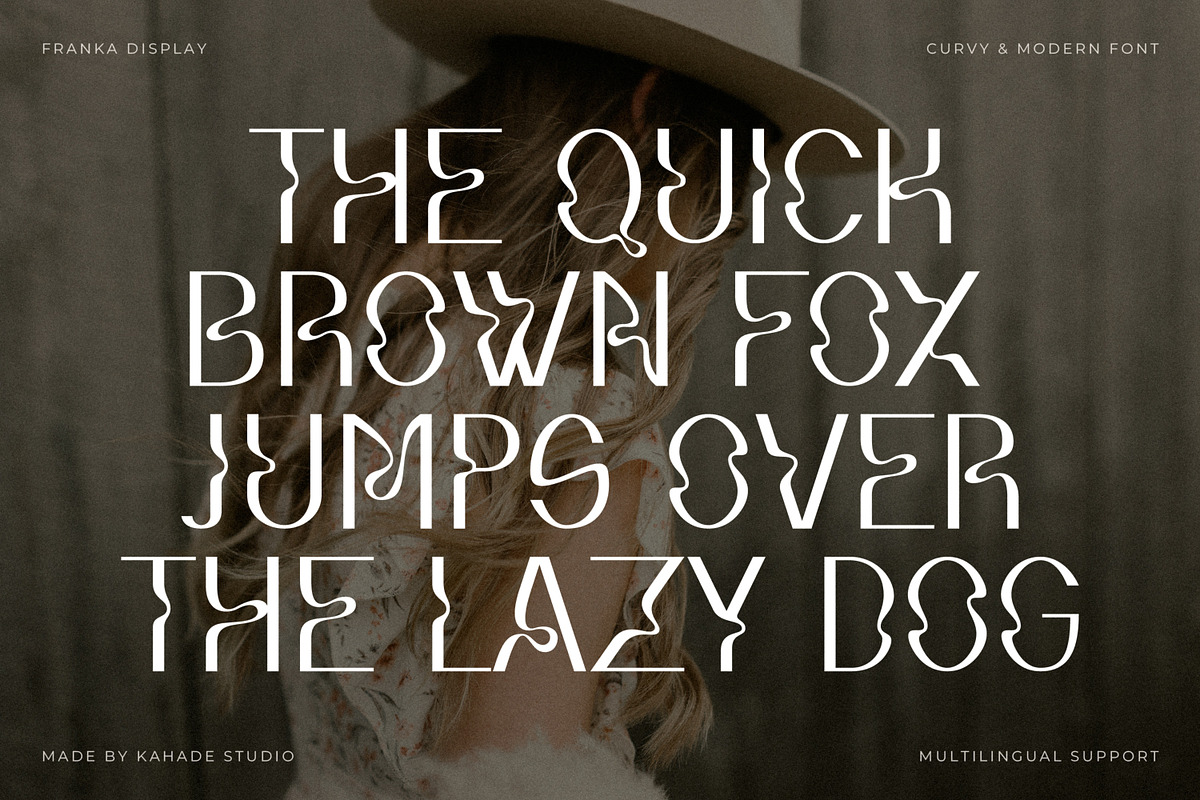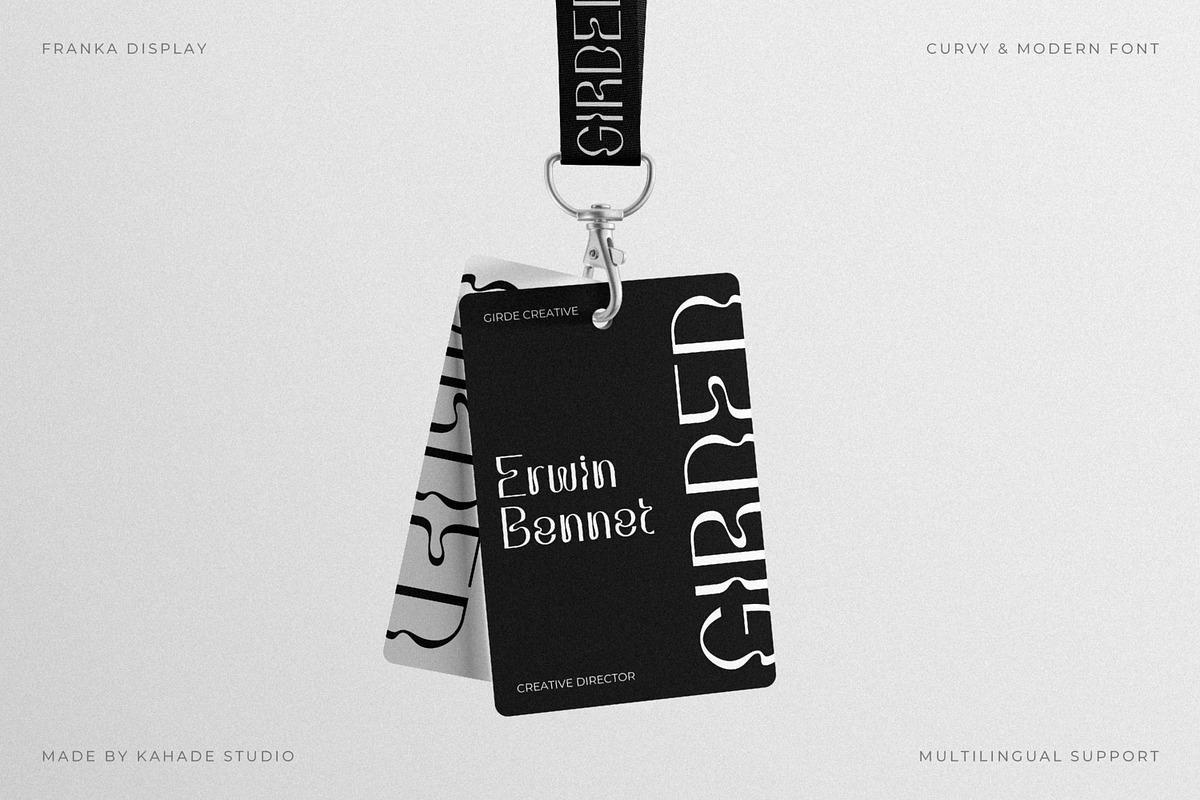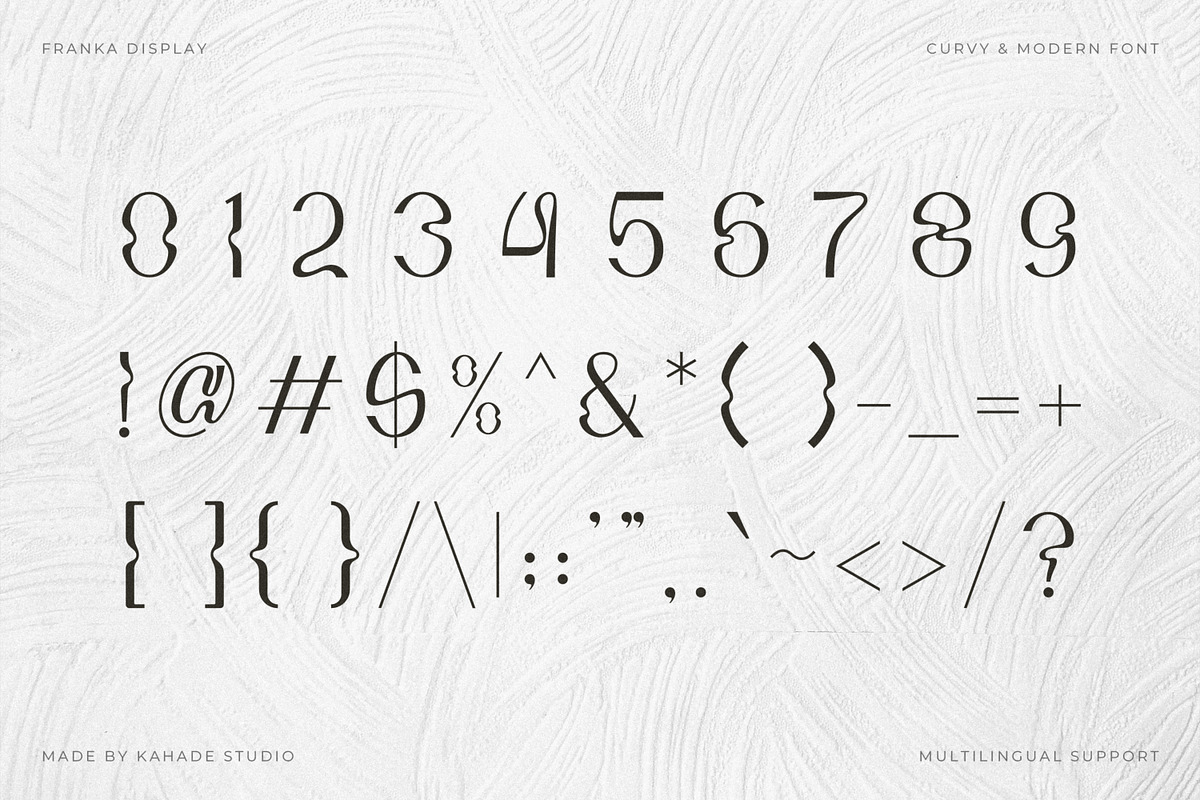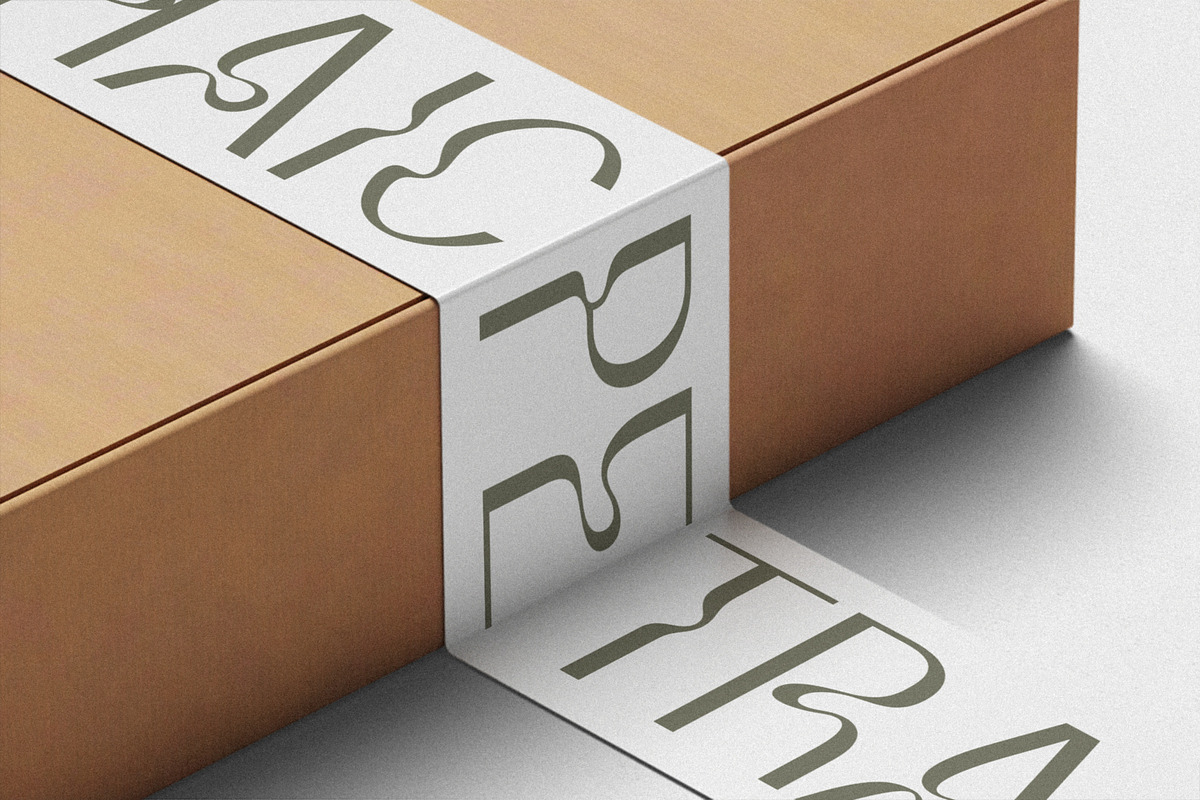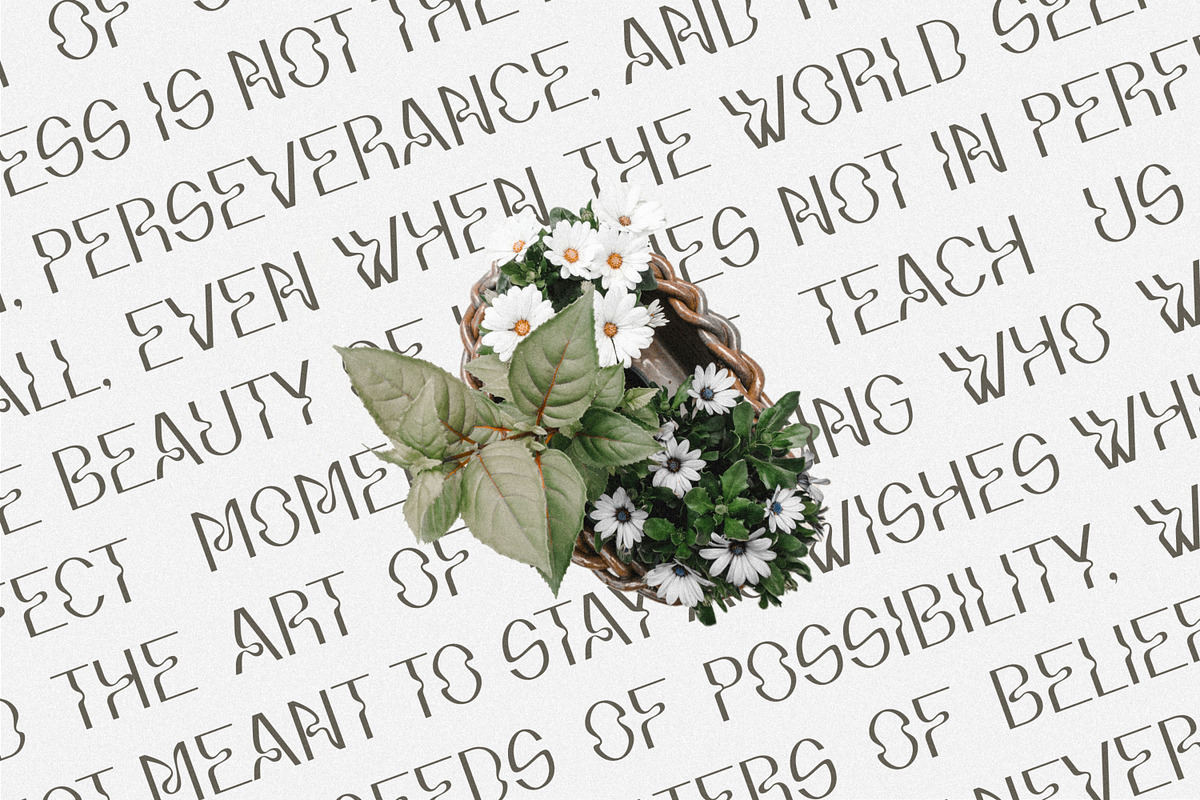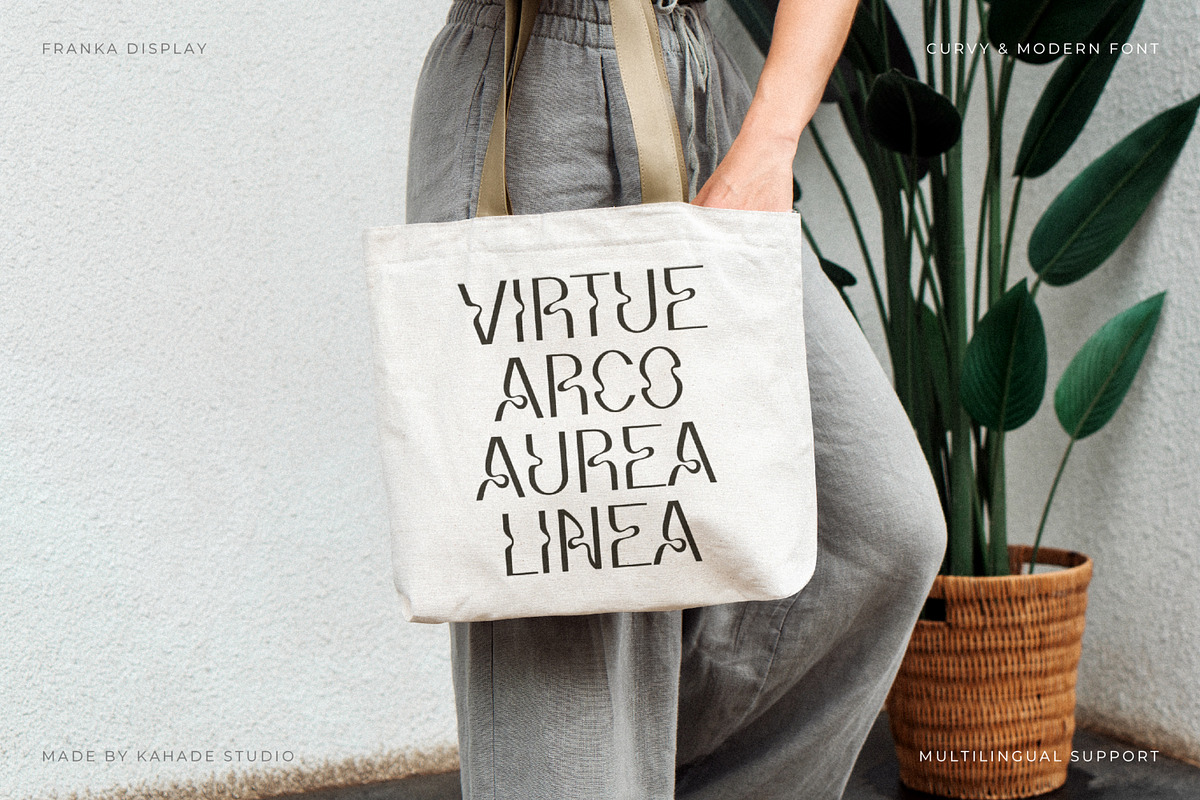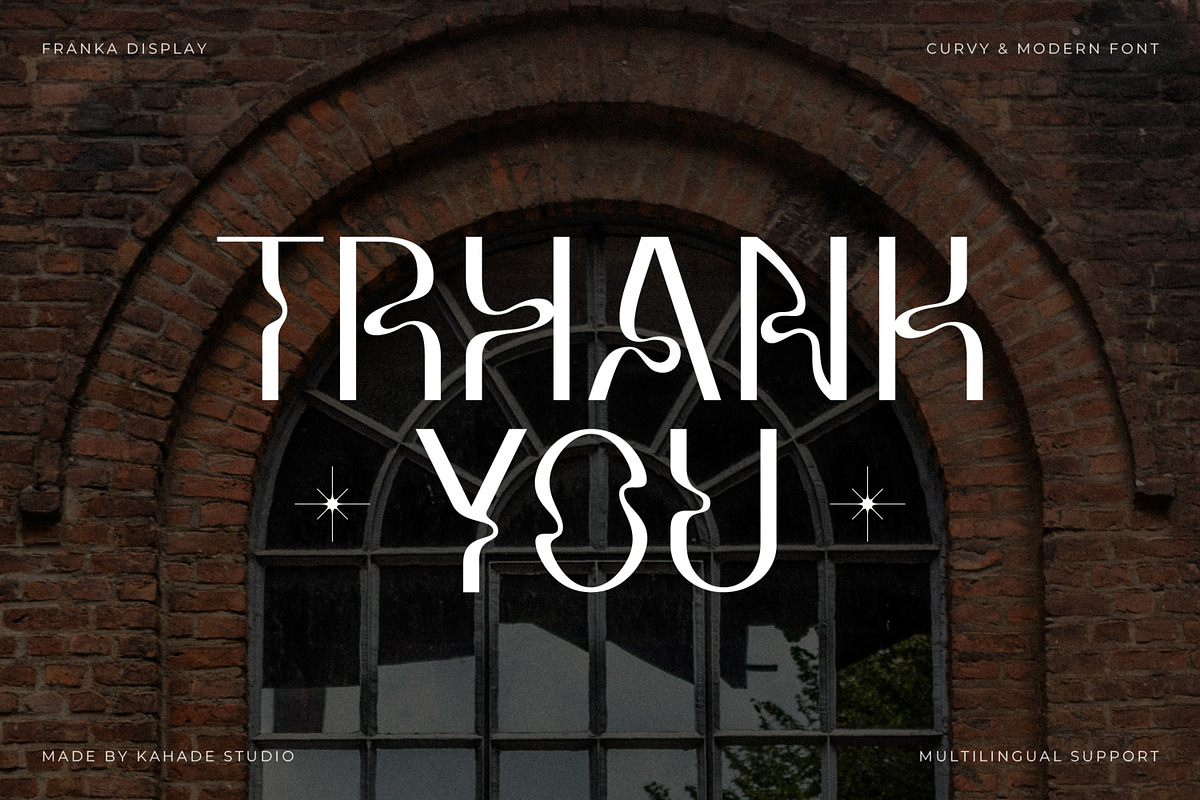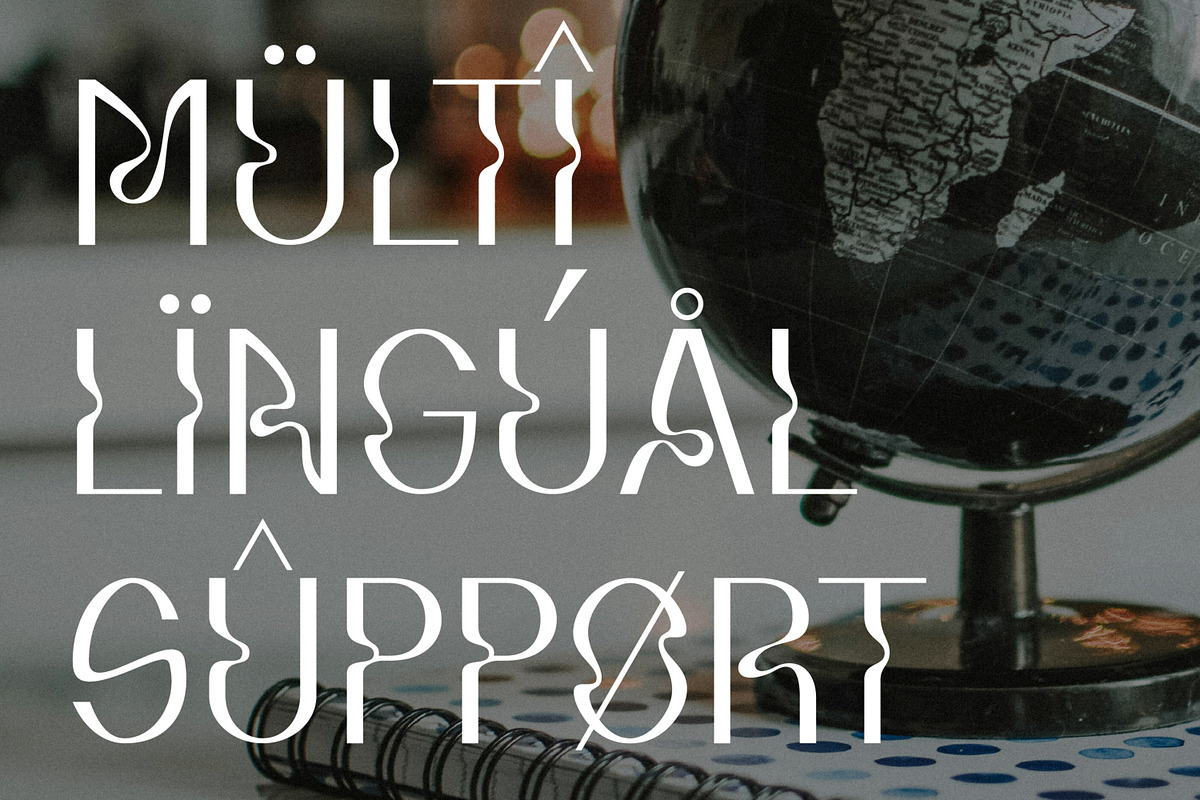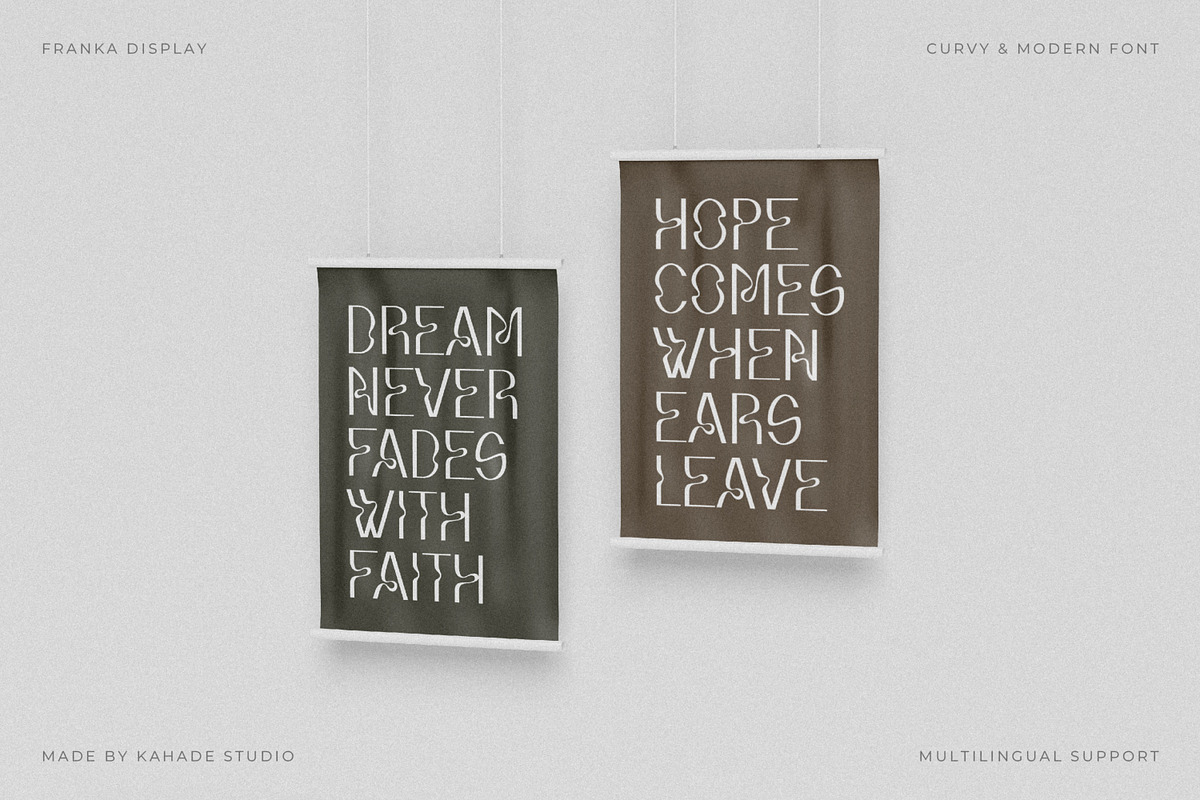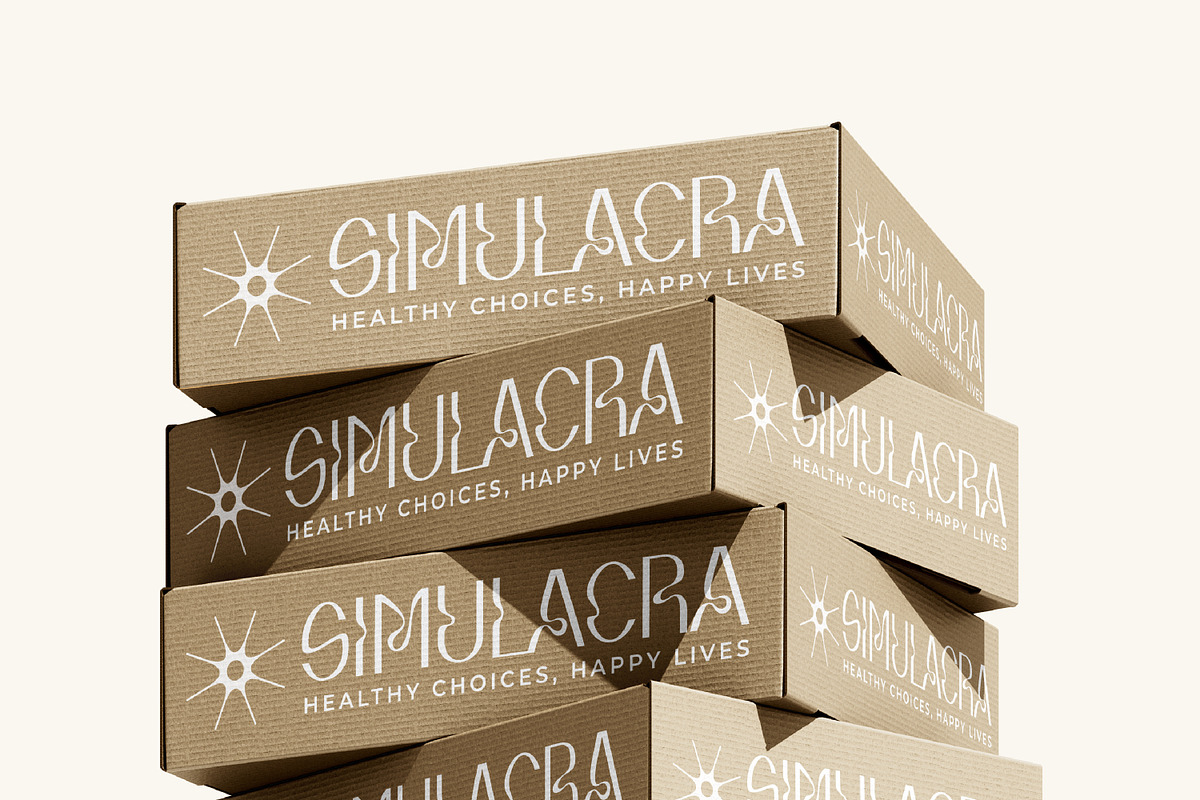
Franka - Modern Curvy & Wavy Font
Franka – Modern Curvy Display Font. This font has a chunky character. Suitable for your various special project needs.
- Uppercase and Lowercase Character
- Number & Punctuation
- Multilingual Support (Extended Latin Characters)